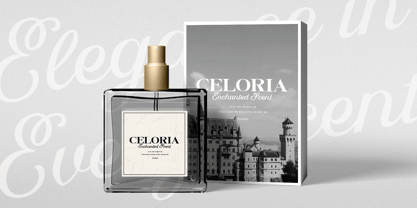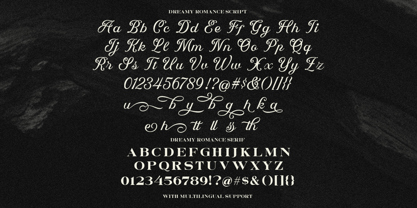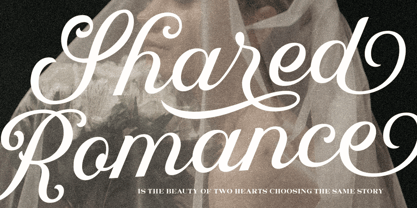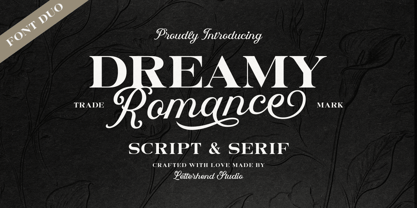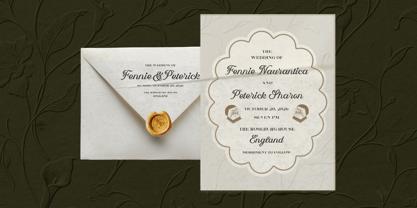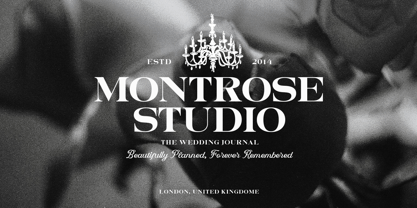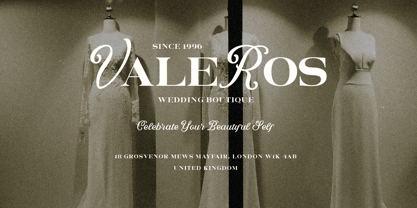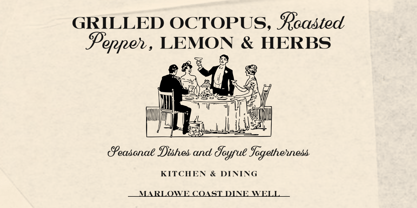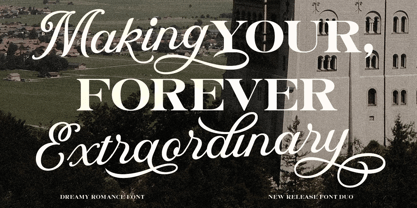
Dreamy Romance
Dreamy Romance is a graceful font duo that brings together sweeping calligraphic script and a bold, sophisticated serif, creating a beautifully balanced contrast between romance and refined editorial style. The script flows with expressive curves, elegant swashes, and a handcrafted rhythm, while the serif adds structure with its dramatic high-contrast letterforms.
Features :
• Uppercase & lowercase
• Numbers and punctuation
• Alternate Characters
• Multilingual Support
• PUA encoded